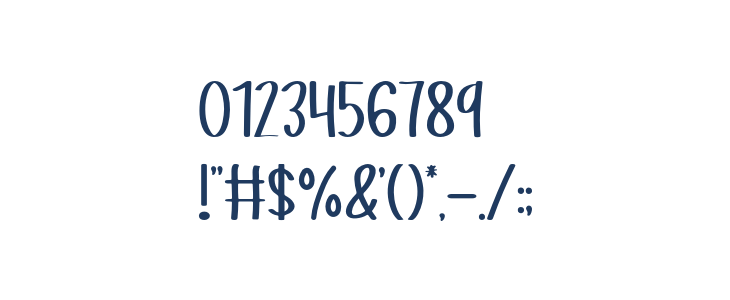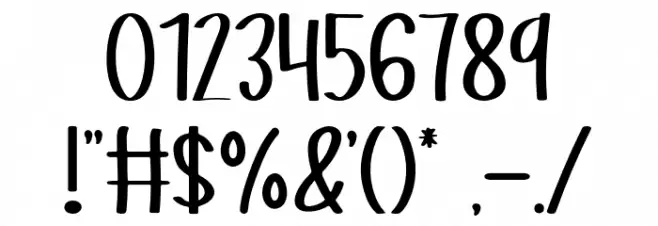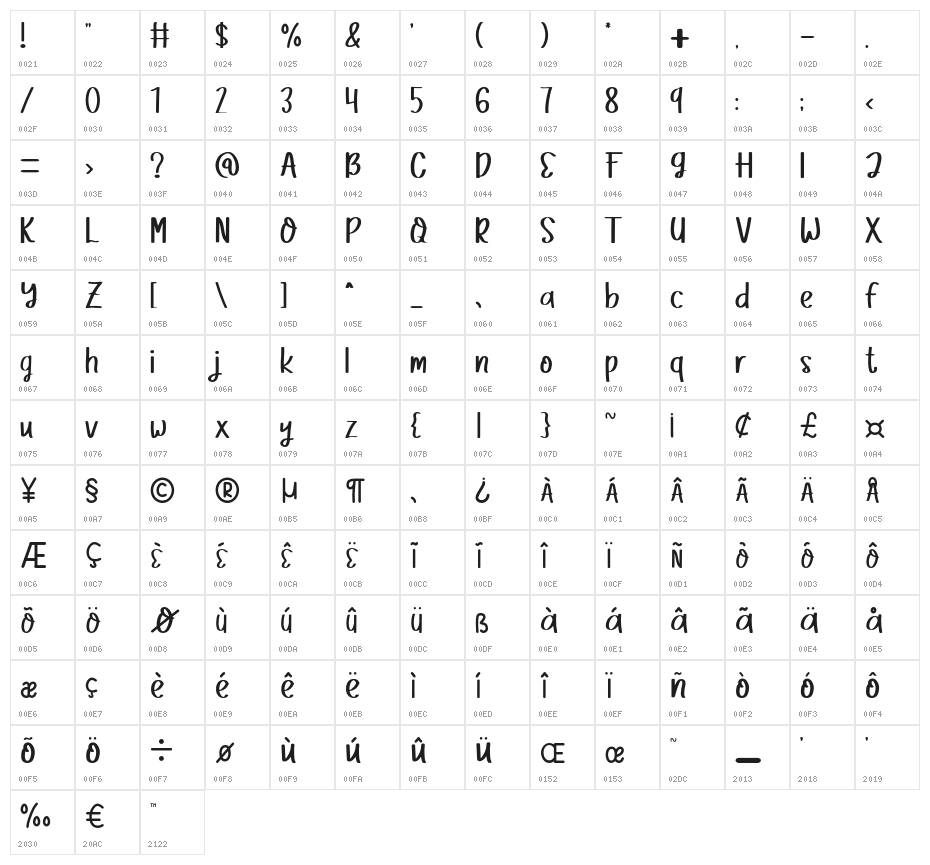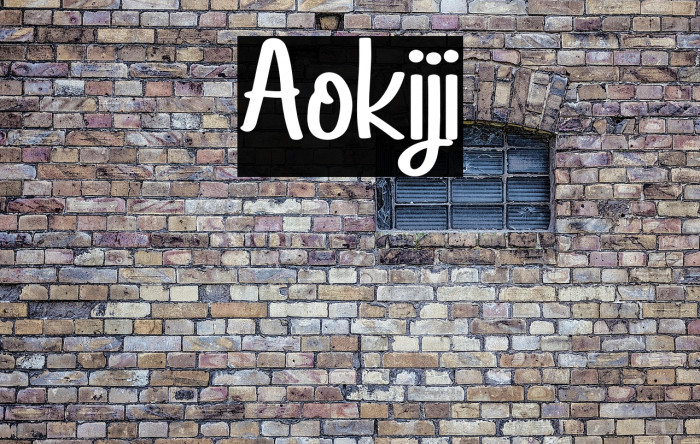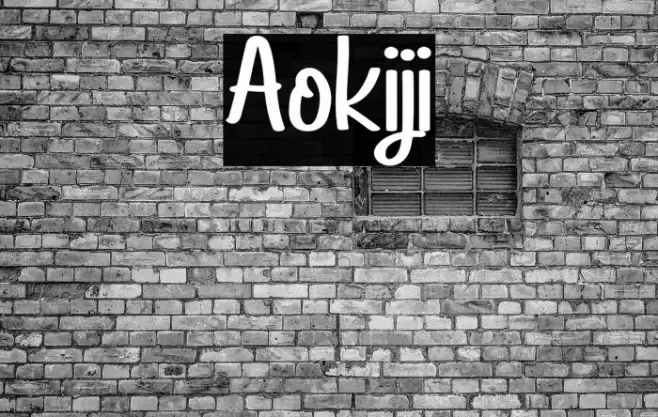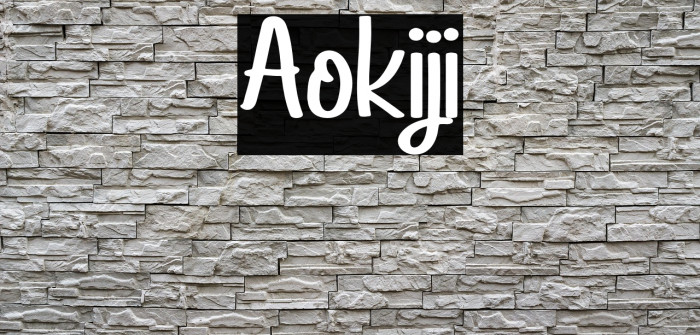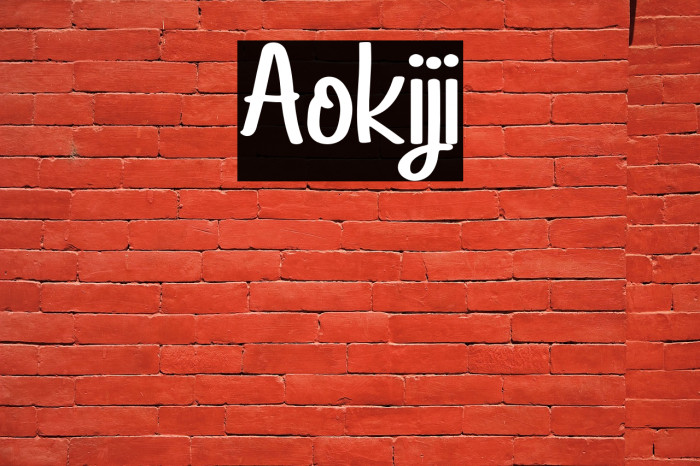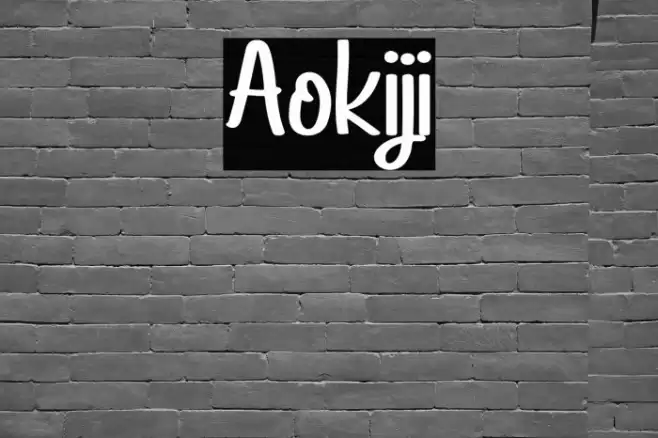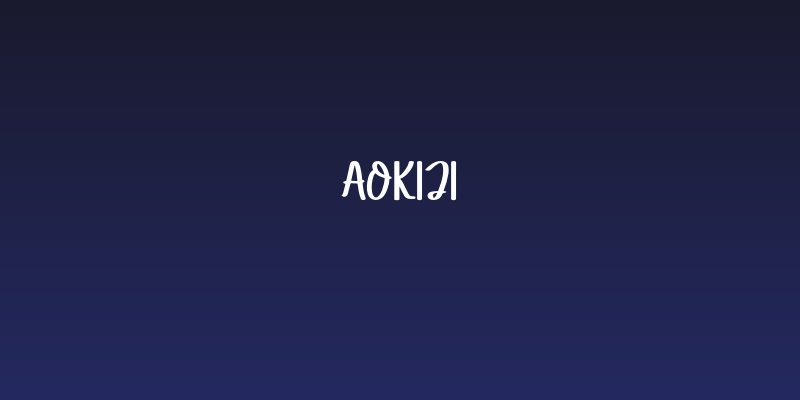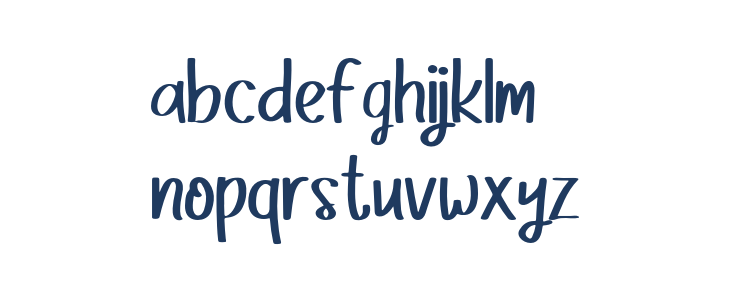
Aokiji Font
Aokiji Description
This font features a playful and casual handwritten style, characterized by its smooth curves and slightly irregular strokes. The uppercase letters are bold and slightly condensed, giving a strong presence, while the lowercase letters maintain a friendly and approachable feel. The numbers and special characters are consistent with the overall style, ensuring readability and coherence. The font's unique charm lies in its balance between informality and clarity, making it suitable for a variety of creative projects.